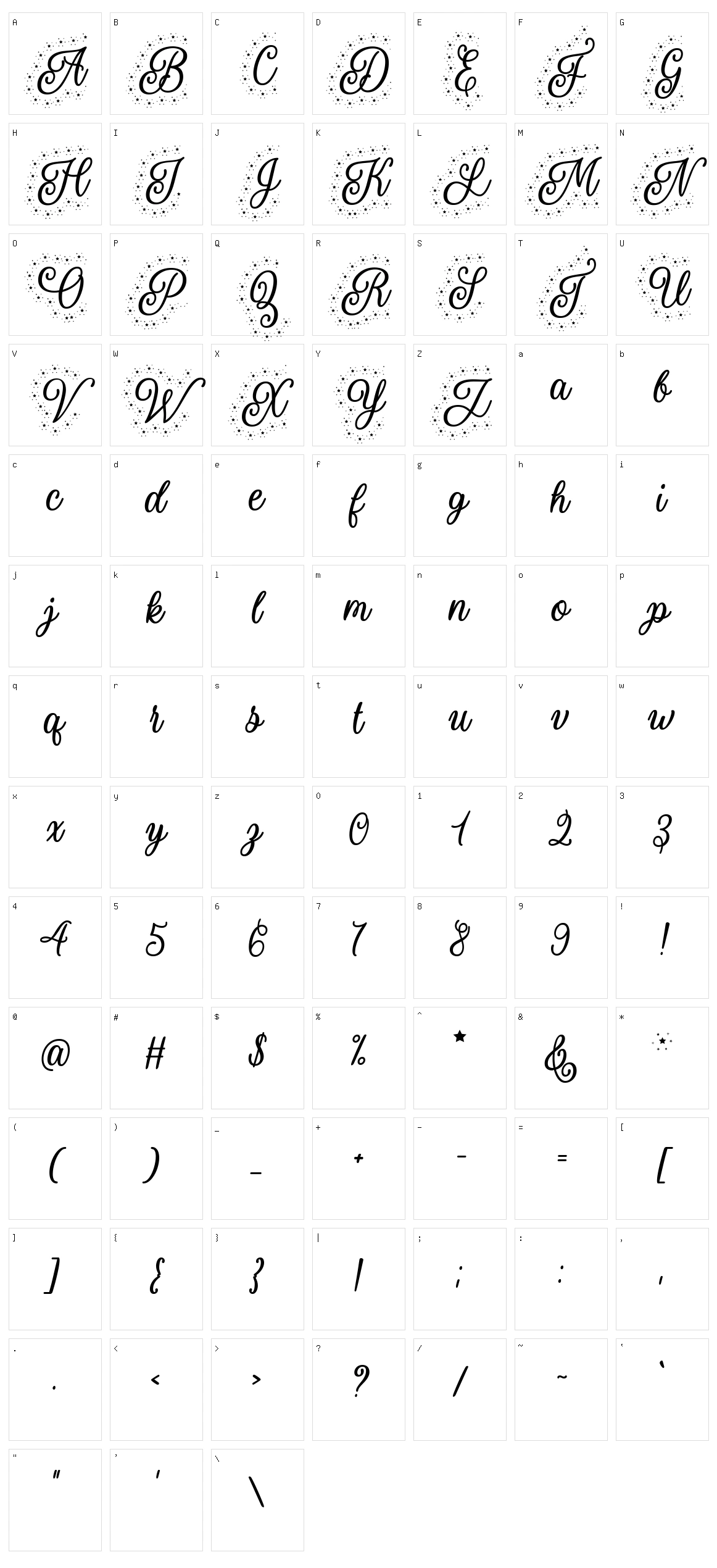
The free font Staryssa is carefully designed by Misti's Fonts, showcasing a thoughtful balance of creativity and usability and falls under the Christmas font style. When you download the ZIP file, it contains only 388.26 KB of font files, making it lightweight and quick to download. Please review the license details below to understand permitted usage and distribution rights. If license information is not available, we recommend using this font for personal projects only or contacting the author directly for commercial usage permissions.